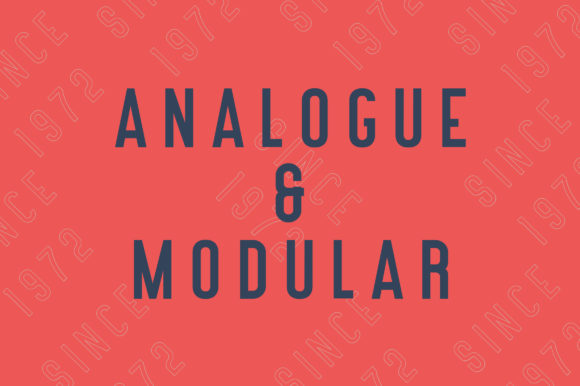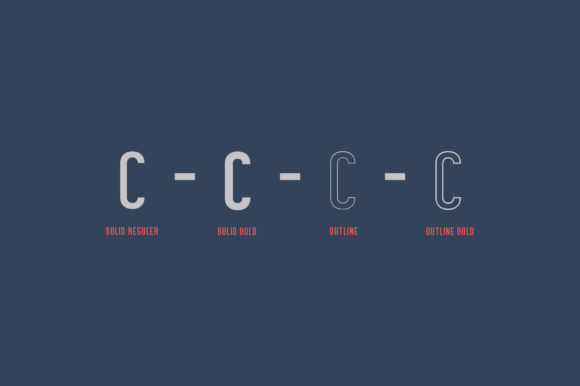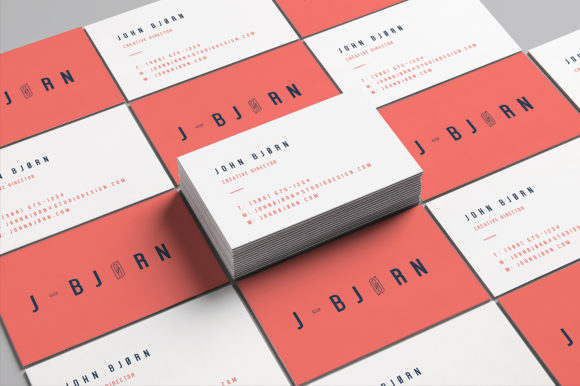
Introduction to Monerd Font
Do you remember the moment when you stumbled upon the perfect font for your creative project? For designers, this moment can be a game-changer. It’s the spark that sets the tone for the entire project, making it stand out from the rest. If you’re looking for that perfect font, you’re in luck. Meet the Monerd Font, a bold and solid sans serif font that’s sure to elevate your design to the next level.
The Monerd Font is more than just a font – it’s a design resource that’s perfect for branding, logos, magazines, films, and more. Its high quality and versatility make it an ideal choice for designers who want to create a lasting impression. And the best part? The Monerd Font is available for free download, making it accessible to designers of all levels.
Key Features of Monerd Font
- High-quality, vector-based font suitable for various creative projects.
- Includes a range of characters and glyphs, making it a versatile design resource for various projects.
- Monerd Font is available in a single size, but it’s highly scalable and suitable for both small and large designs.
Honest Review: Monerd Font
I recently had the chance to work with the Monerd Font in one of my creative projects, and I must say it’s been a game-changer. As a designer, I’m always on the lookout for high-quality design resources that can elevate my work, and Monerd Font definitely delivers.
Here are some things that work well with Monerd Font:
- ✨ Clean and modern design: The font is incredibly easy on the eyes and adds a touch of sophistication to any project.
- ✨ Highly versatile: I’ve used Monerd Font in everything from digital designs to print materials, and it looks great every time.
- ⚠️ Limited customization options: While the font itself is fantastic, I wish there were more options for customization, such as the ability to change the color or add a transparent background.
Overall, I’m thoroughly impressed with Monerd Font. Its high quality, versatility, and free download make it an excellent design resource for any project. If you’re a designer looking for a clean and modern font, I highly recommend giving Monerd Font a try.
Common Use Cases for Monerd Font
Monerd Font is ideal for a variety of creative projects, including logos, branding materials, social media graphics, and digital marketing materials. Its high-quality design and transparent background make it a versatile and useful design resource.